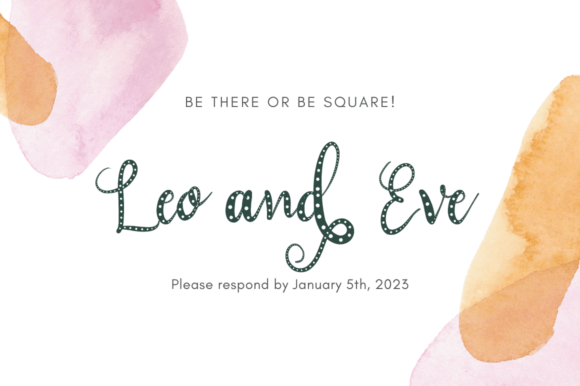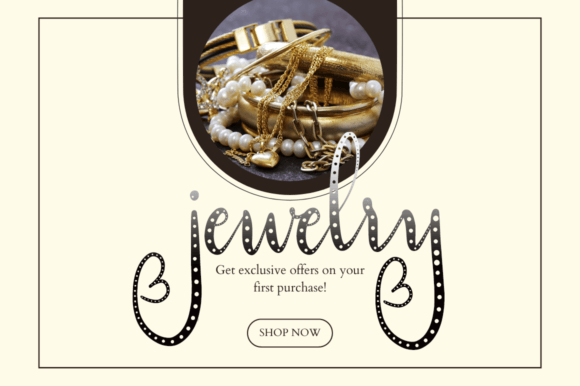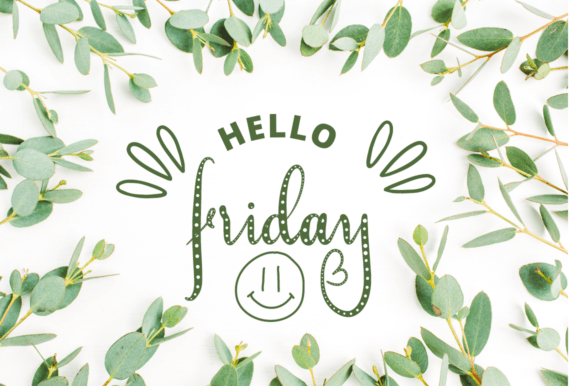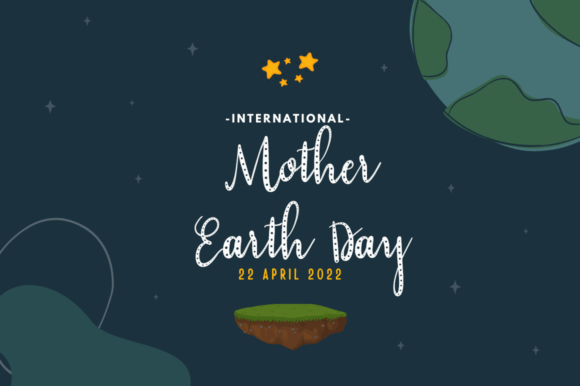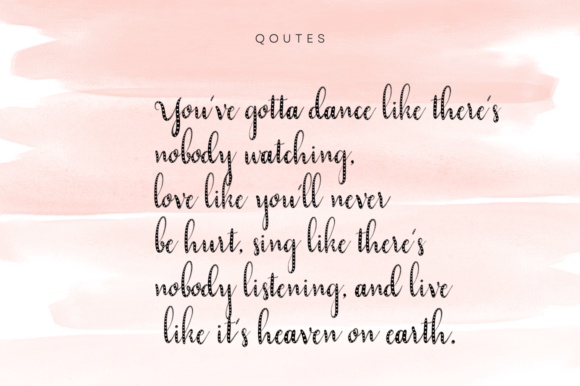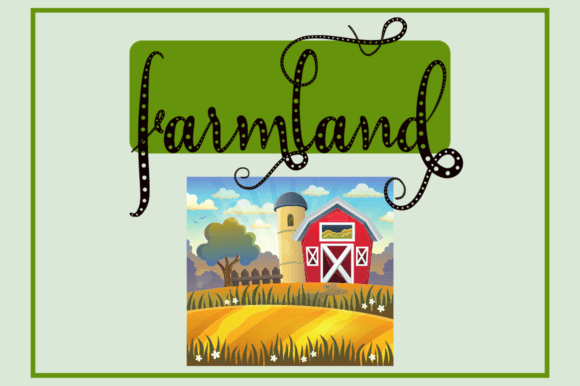
About Sophia Font
“Sophia” is a captivating script font that exudes a magical and enchanting quality. With its delicate characters, it adds an adorable and festive look to any project you want to create. Additionally, “Sophia” is PUA encoded, making it easy to access all the glyphs and ligatures for added creative flexibility.
The charm of “Sophia” lies in its dainty and whimsical characters. Each letter seems to carry a touch of magic, making it a perfect choice for projects that aim to captivate and delight the audience.
This font’s versatility allows it to be a valuable asset for various applications. Whether you’re designing festive invitations, crafting charming greeting cards, adding a touch of whimsy to posters, or working on creative projects, “Sophia” adapts seamlessly to your vision.
The magical and dainty characters of “Sophia” can infuse your projects with a sense of wonder and joy. Whether you’re working on personal or professional projects, this font brings a unique and delightful touch to your work.
In summary, “Sophia” is more than just a font; it’s a creative tool that adds a touch of magic to your projects. Whether you’re a professional designer or someone who enjoys crafting and creating charming items, “Sophia” is here to make your designs come alive with its magical script. Embrace the enchantment of “Sophia” and watch your creativity sparkle and shine.